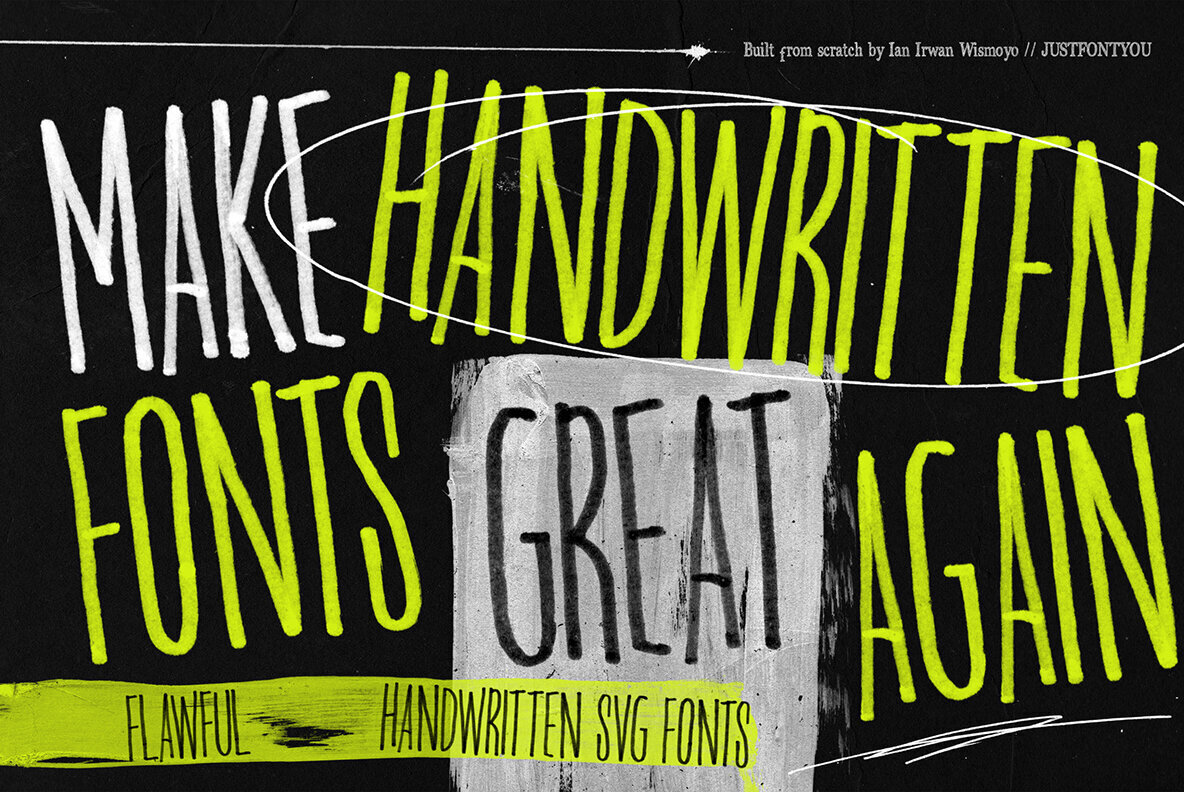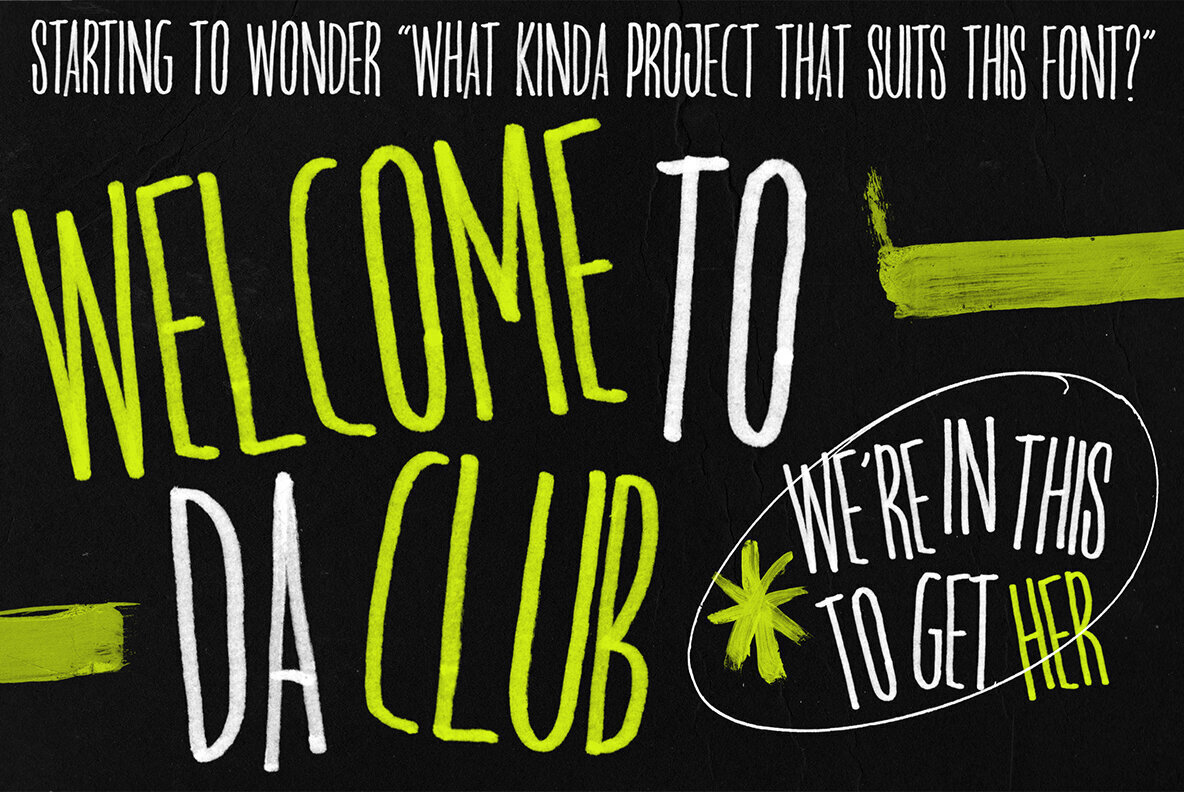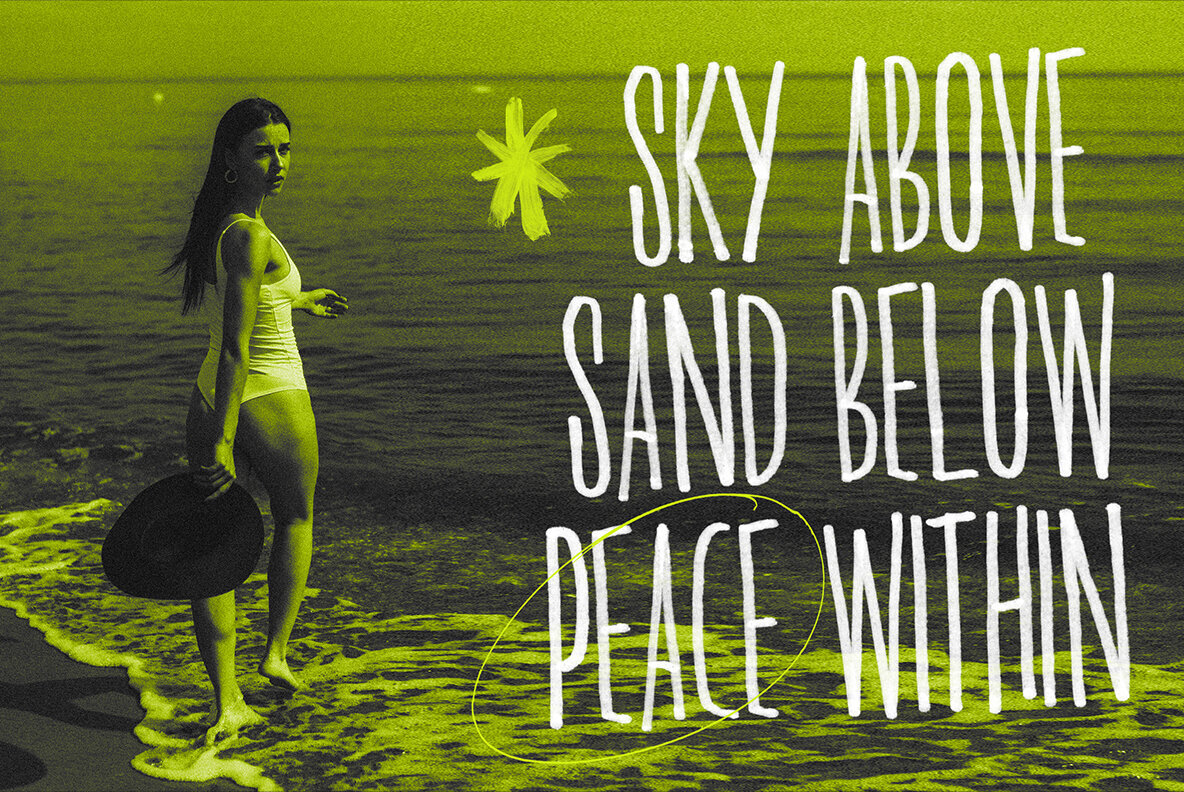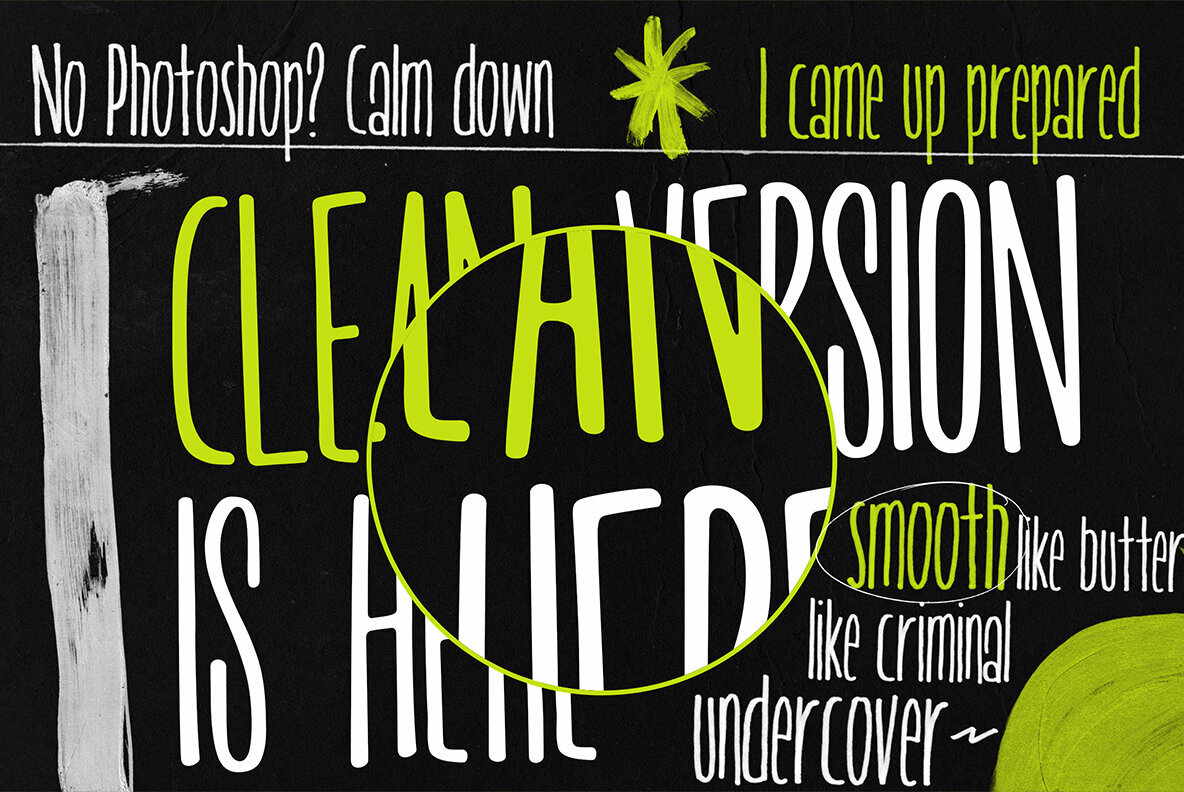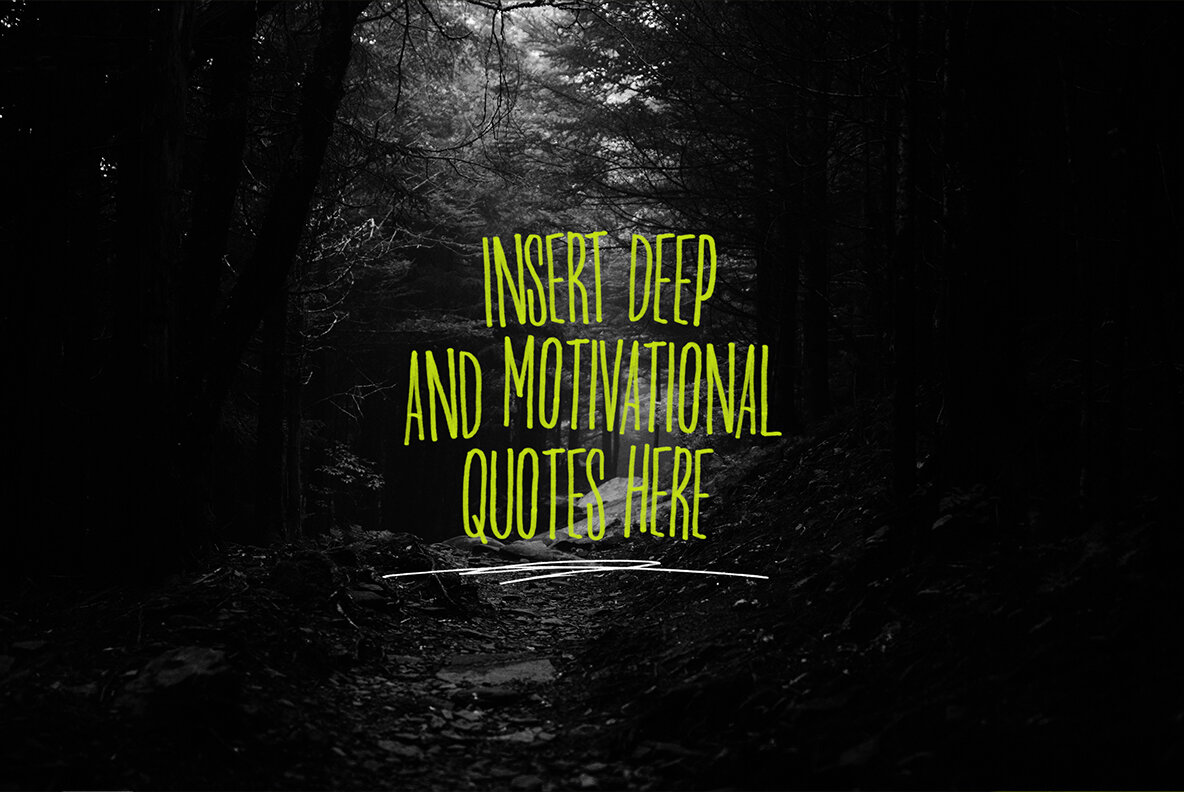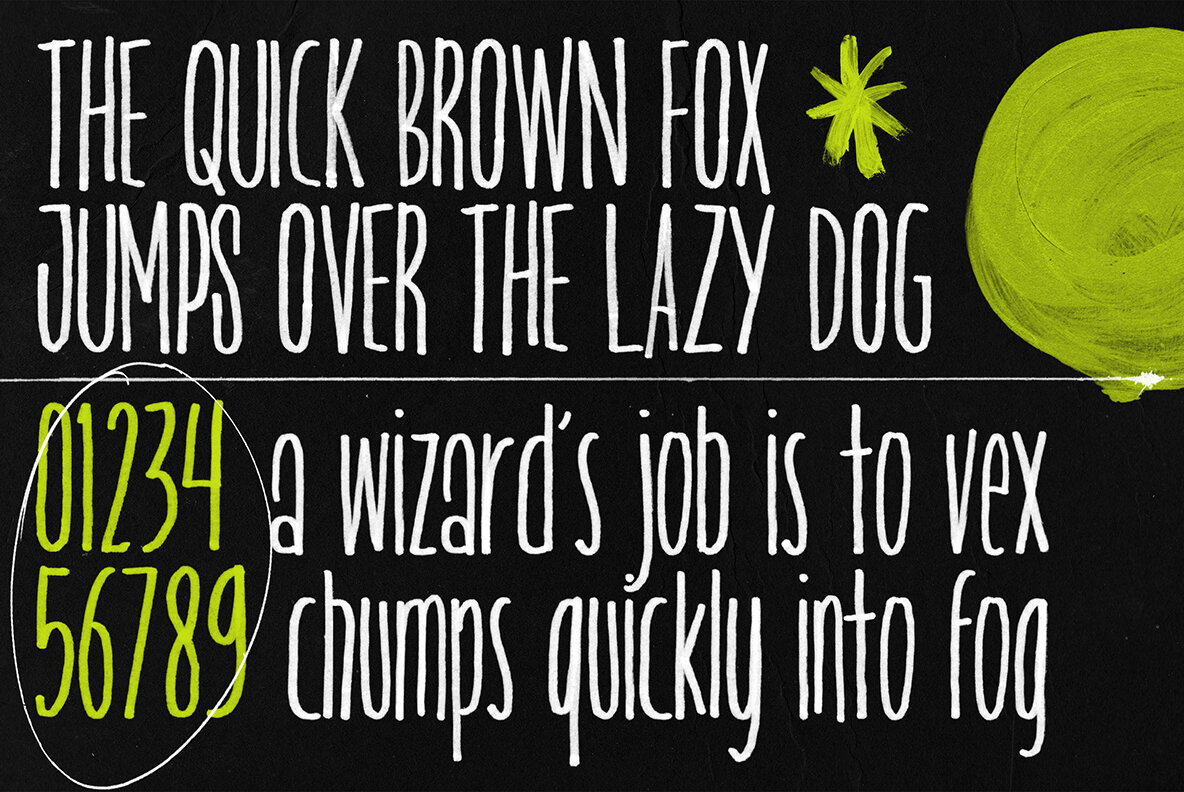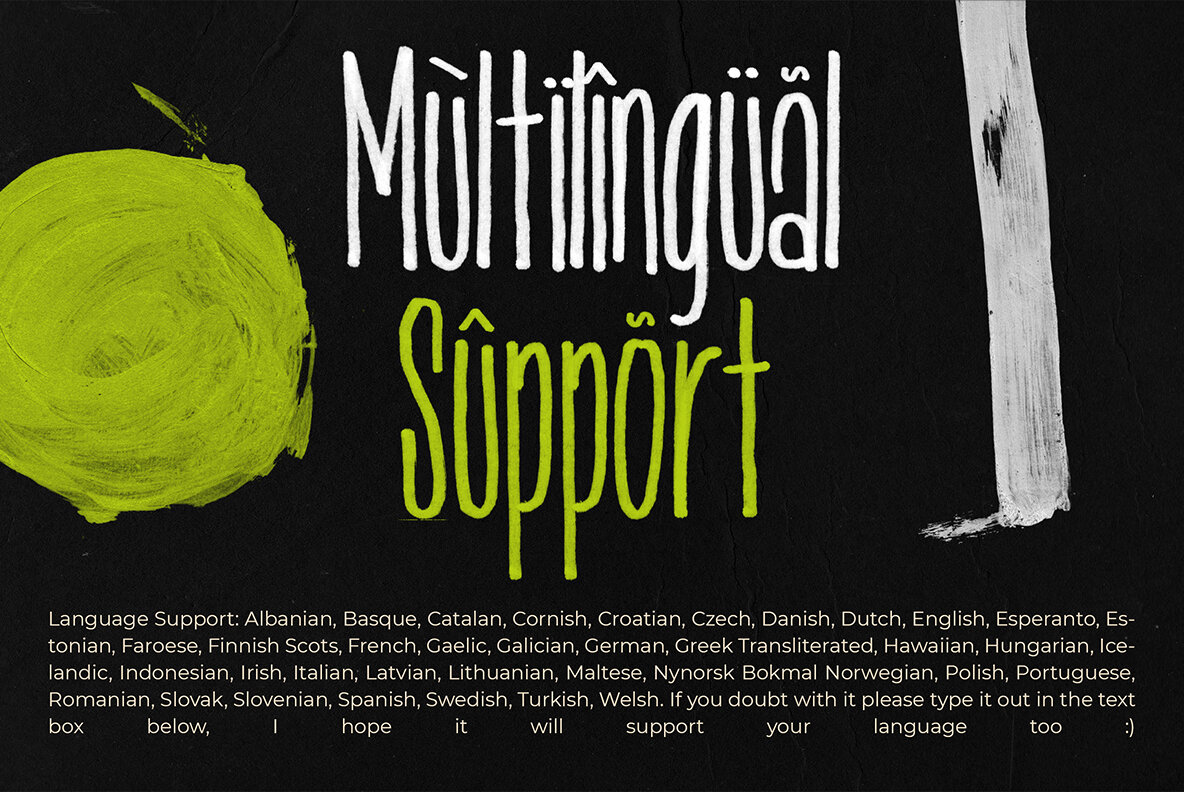
Flawful Font
Flawful stands as a testament to the beauty of individual expression through its unique handwritten form. Created directly from personal artistry, this font embodies authenticity in every stroke, offering unrivaled texture and personality in digital design.Flawful: Handwritten Font with Distinct Styles